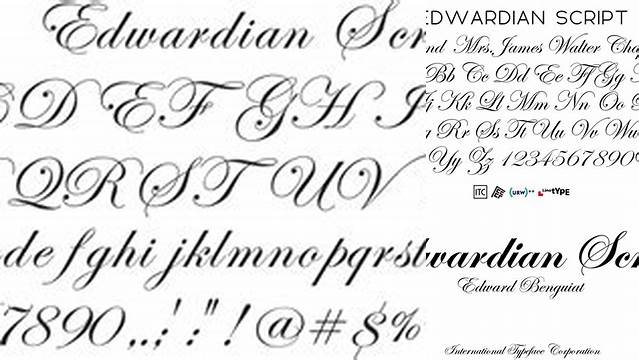
Hey guys! Looking to add a touch of elegance and sophistication to your designs? You've come to the right place! Let's dive into the world of Edwardian Script fonts and explore how you can get your hands on these beauties for free in TTF format. We're going to cover everything from where to find them, how to use them, and even some creative ideas for incorporating them into your projects. Trust me, you'll be spellbound by the end of this article!
Edwardian Script Font: An Introduction
Let's start with the basics. What exactly is the Edwardian Script font? Well, it's a stunning calligraphy-style typeface that harkens back to the Edwardian era (early 1900s). Think graceful curves, flowing lines, and an overall sense of timeless beauty. This makes it a perfect choice for designs that need a touch of class, whether it's wedding invitations, logos, or even just adding some flair to your personal projects. You'll find that using the Edwardian Script font can really elevate your work, making it stand out from the crowd. It's like adding a dash of vintage charm to the digital world, and who wouldn't want that?
Using Edwardian Script Font in Graphic Design
Alright, you've got your Edwardian Script font downloaded and installed. Now, let's talk about how to actually use it in your graphic design projects. This font is incredibly versatile, but it shines best when used strategically. We'll explore some tips and tricks for incorporating it into logos, invitations, posters, and more. Think about how the font interacts with other elements in your design and how to maximize its visual impact. Whether you're a seasoned designer or just starting out, we'll help you unleash the power of Edwardian Script!
Edwardian Script Font for Wedding Invitations
Planning a wedding? An Edwardian Script font is an absolute dream for creating elegant and romantic wedding invitations. It instantly adds a touch of class and sophistication. We'll delve into how to use this font for your wedding stationery, from the main invitation to RSVP cards and thank-you notes. Think about pairing it with complementary fonts and design elements to create a cohesive and unforgettable invitation suite. Your guests will be wowed by the sheer beauty of your Edwardian Script-infused invitations!
Edwardian Script Font for Logos and Branding
Looking to create a logo that exudes elegance and history? The Edwardian Script font can be a fantastic choice for certain brands, especially those aiming for a vintage or sophisticated vibe. We'll discuss how to use this font effectively in logo design and branding materials. Think about how it reflects your brand's personality and target audience. While it might not be suitable for every business, for the right brand, an Edwardian Script font can be a total game-changer.
Edwardian Script Font Alternatives
Okay, so you love the idea of an Edwardian Script font, but maybe it's not quite the right fit for your project. No worries! There are tons of fantastic alternative script fonts out there that offer a similar look and feel. We'll explore some excellent alternatives, ranging from classic scripts to more modern interpretations. This will give you a broader palette to choose from and ensure you find the perfect font for your specific needs. Think of it as expanding your font horizons!
Edwardian Script Font: A Timeless Classic
In conclusion, the Edwardian Script font is a truly timeless classic that can add a touch of elegance and sophistication to any design project. Whether you're creating wedding invitations, logos, or personal artwork, this font is a versatile and beautiful choice. We've covered everything from finding free downloads to using it effectively in various design contexts. So go ahead, download your Edwardian Script font and start creating something amazing! You've got this!